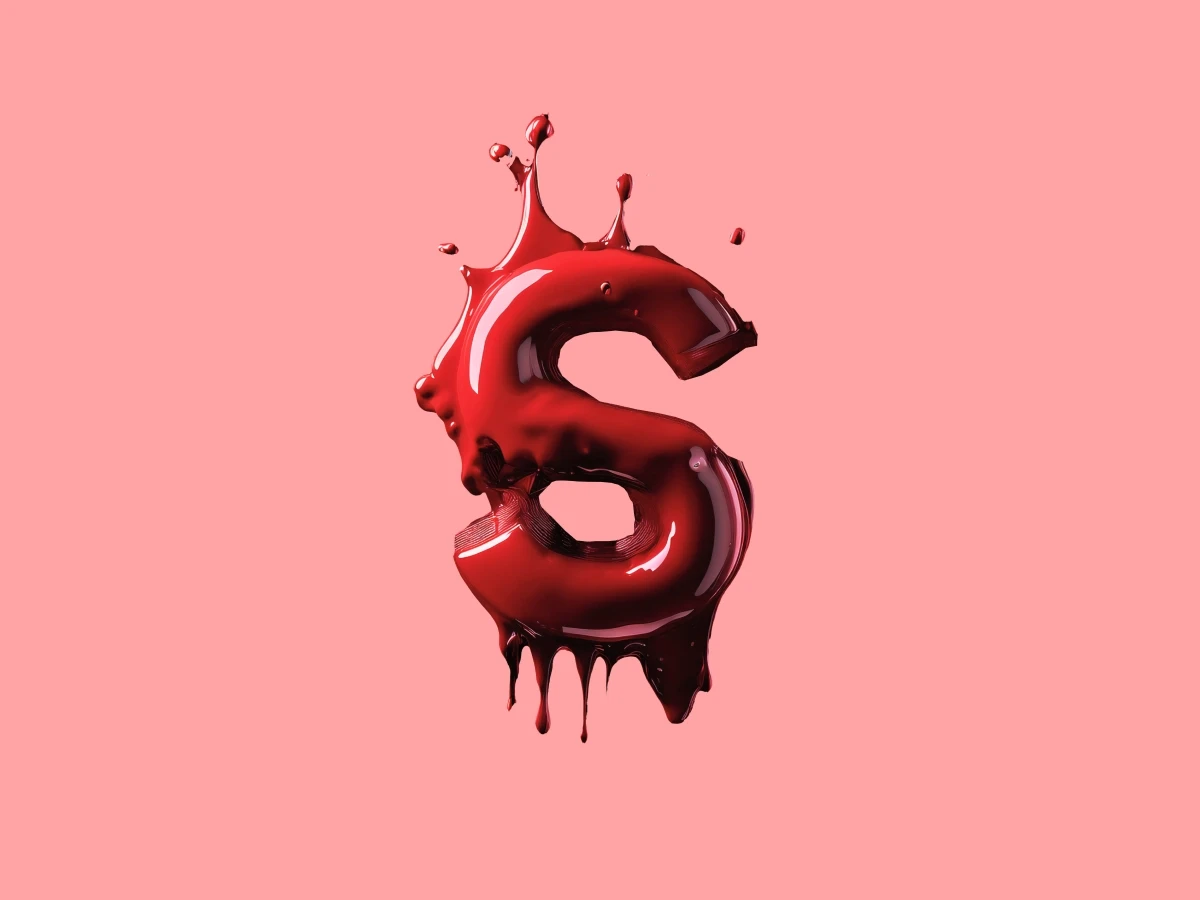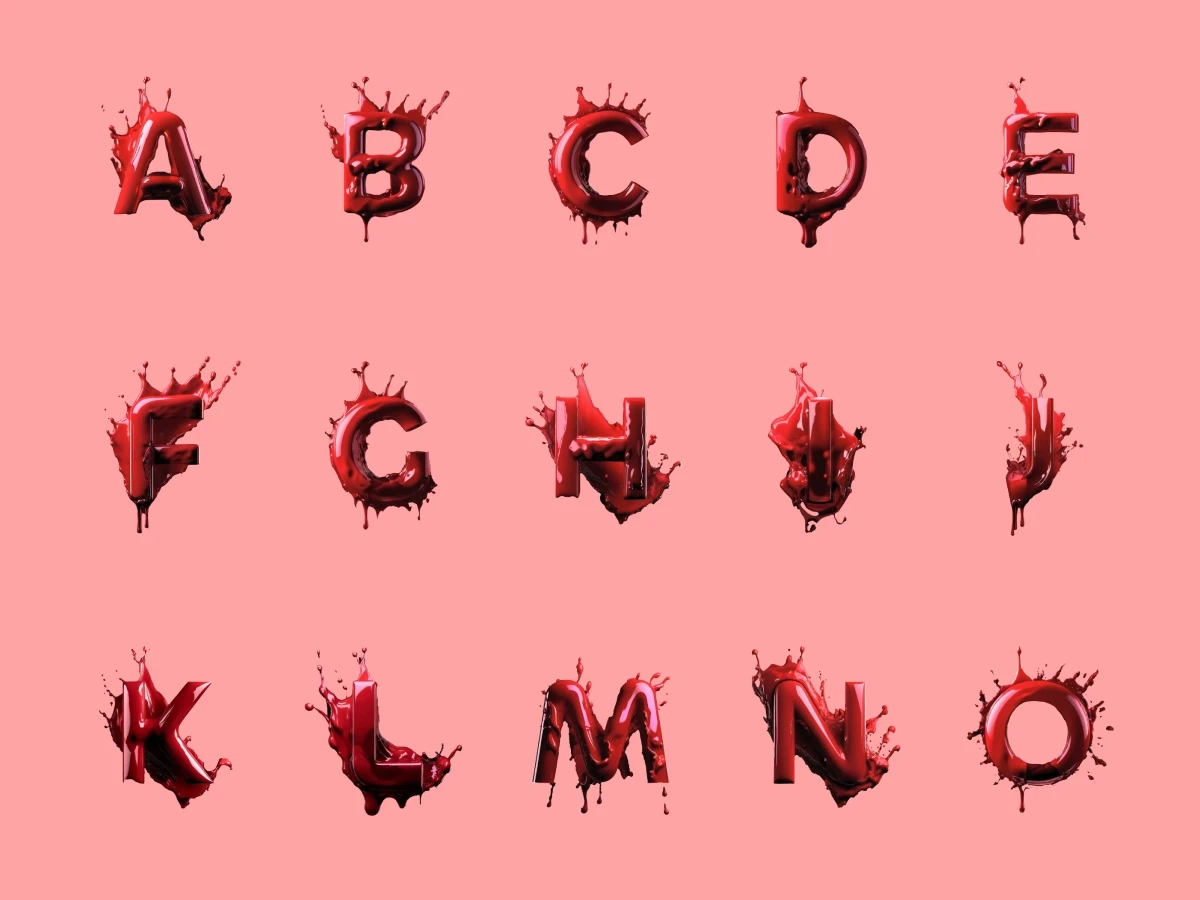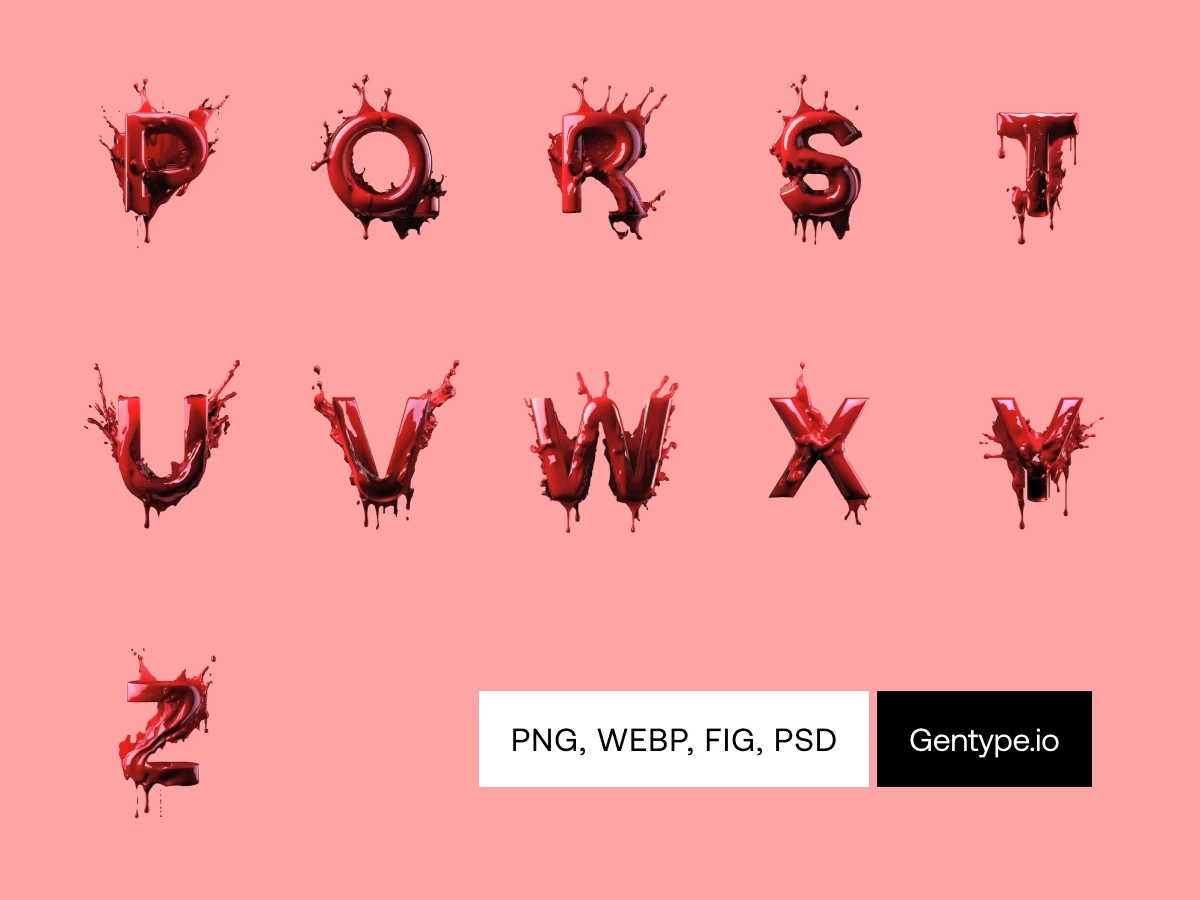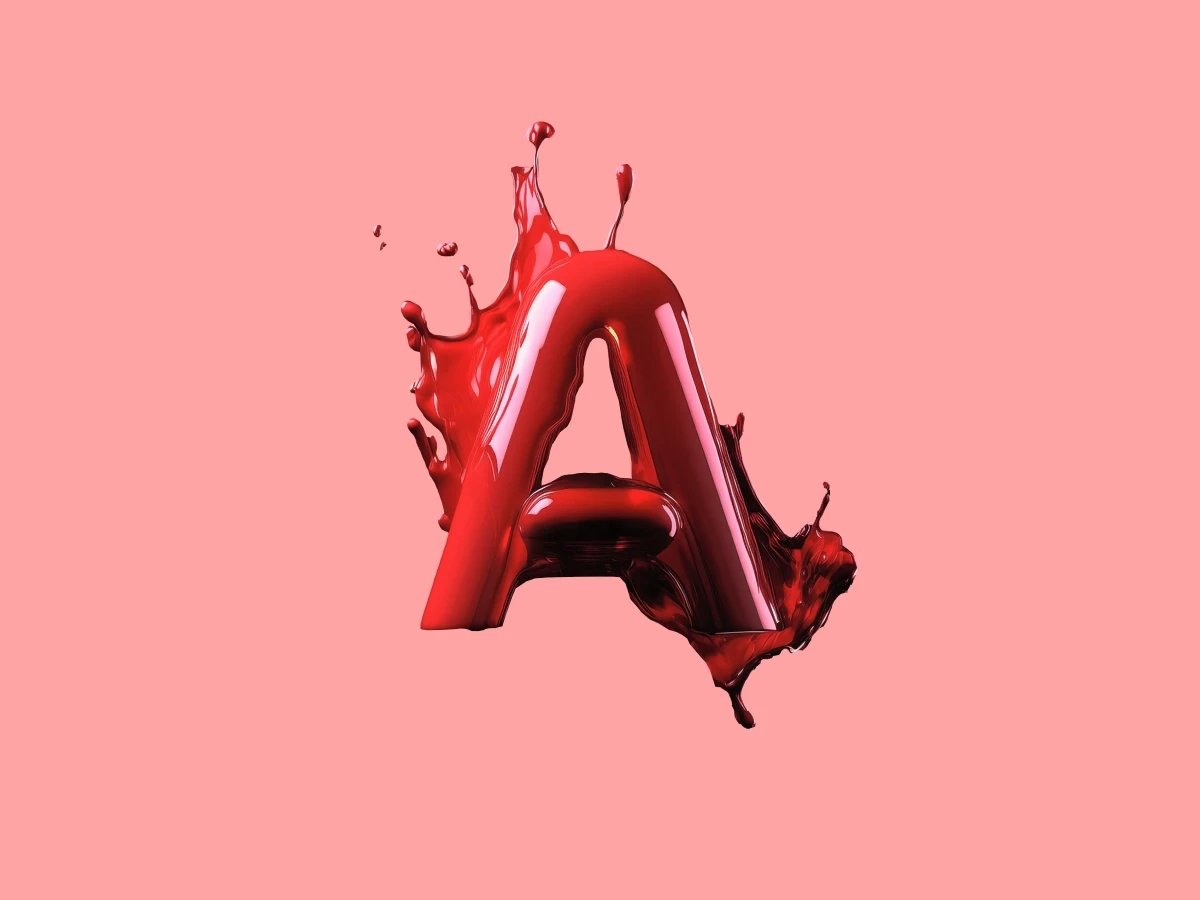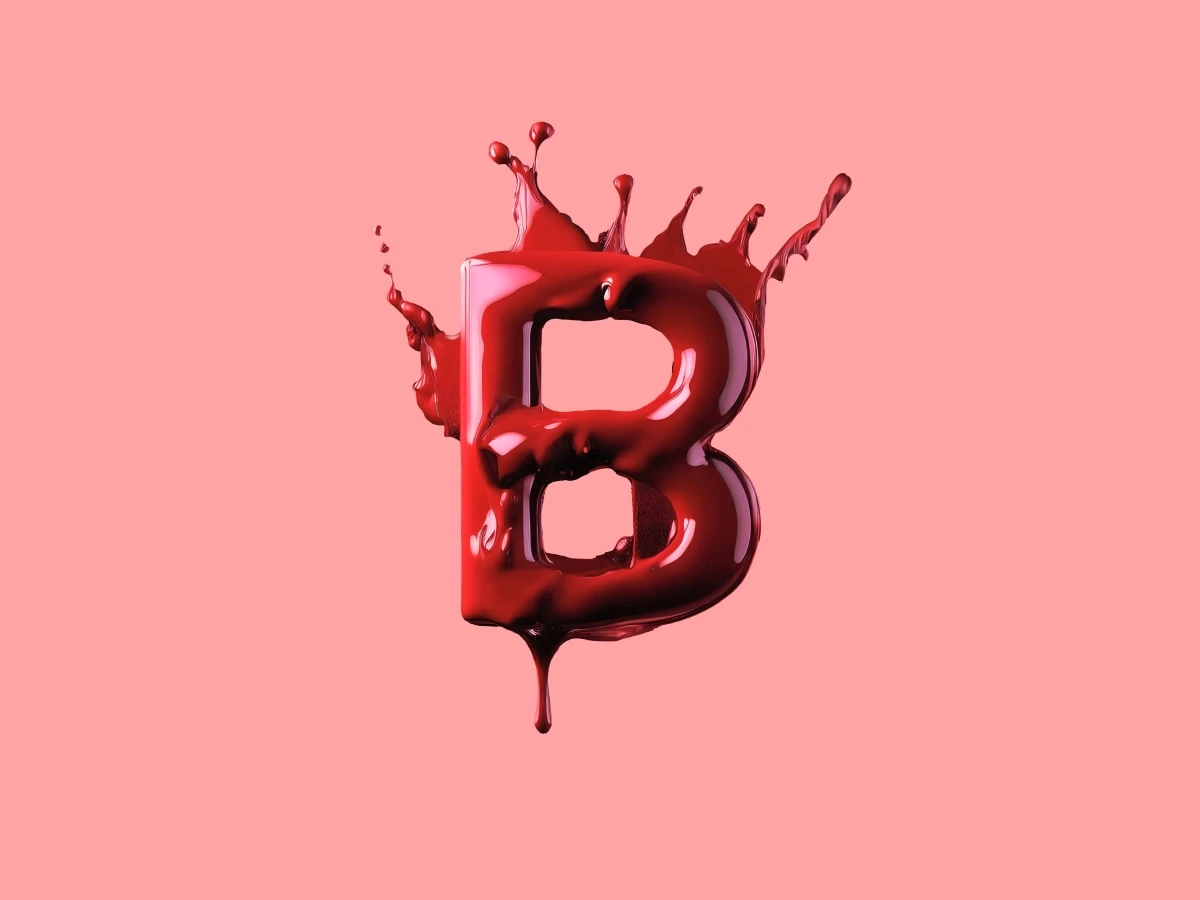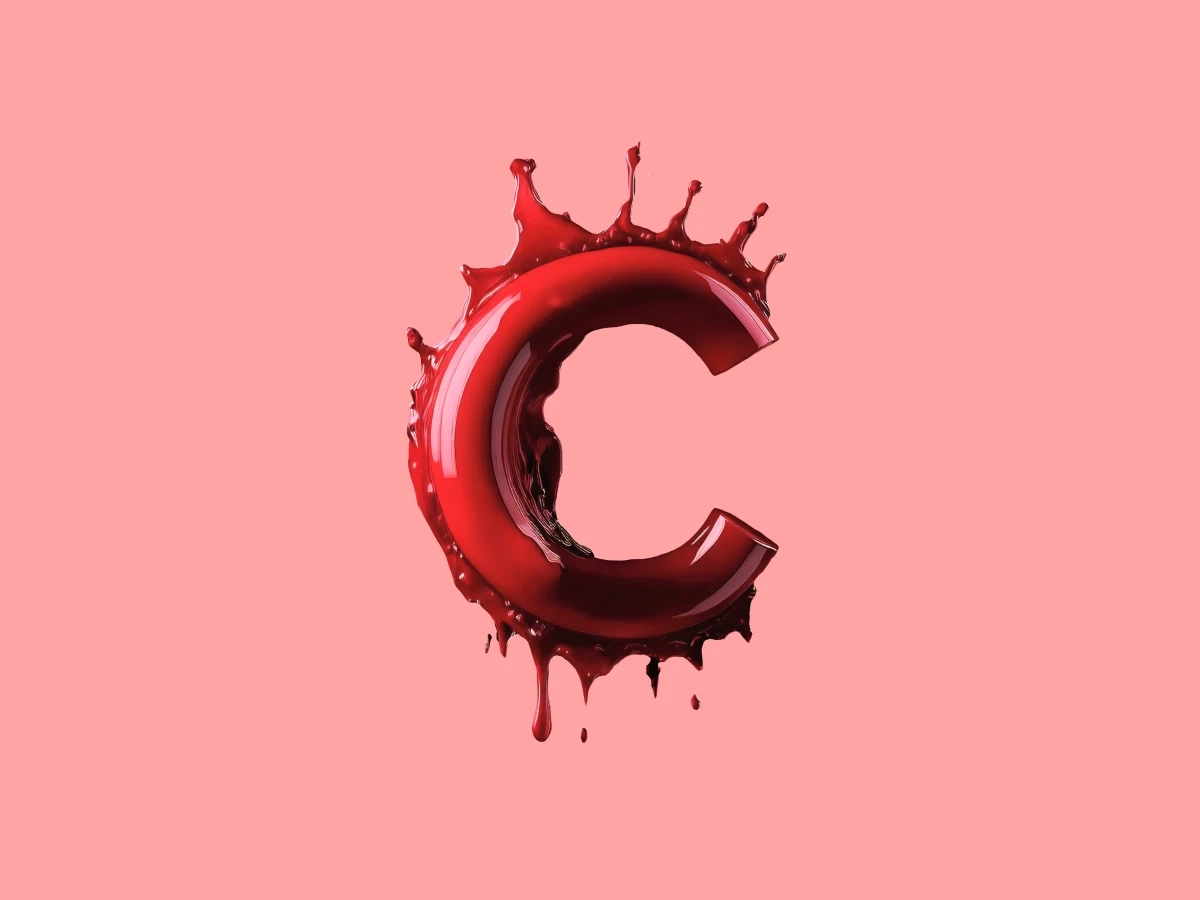
Looks like someone spilled more than just paint – this stuff practically screams “don’t ask questions”. Perfect for when your design needs a splash of mystery, or maybe just a hint of something sinister. Just don’t look too closely… could be paint, could be something a little more… alive. But hey, no need to worry. Probably just your average, everyday “Scary Paint.”